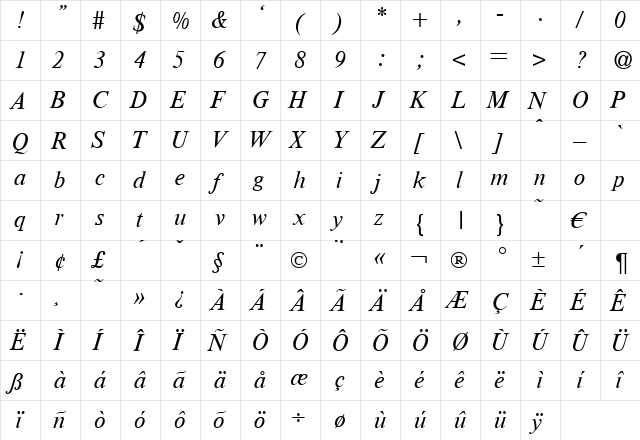
Timmons Italic
Design Context for Timmons Typeface
Timmons takes a measured approach to typography — its balanced proportions and neutral character make it a reliable workhorse for both digital and print work. Its italic angle brings a sense of urgency and motion to the letterforms.
Pro Tip: Use Timmons for emphasis, pull quotes, and subheadings where its slanted energy can add rhythm to the layout.